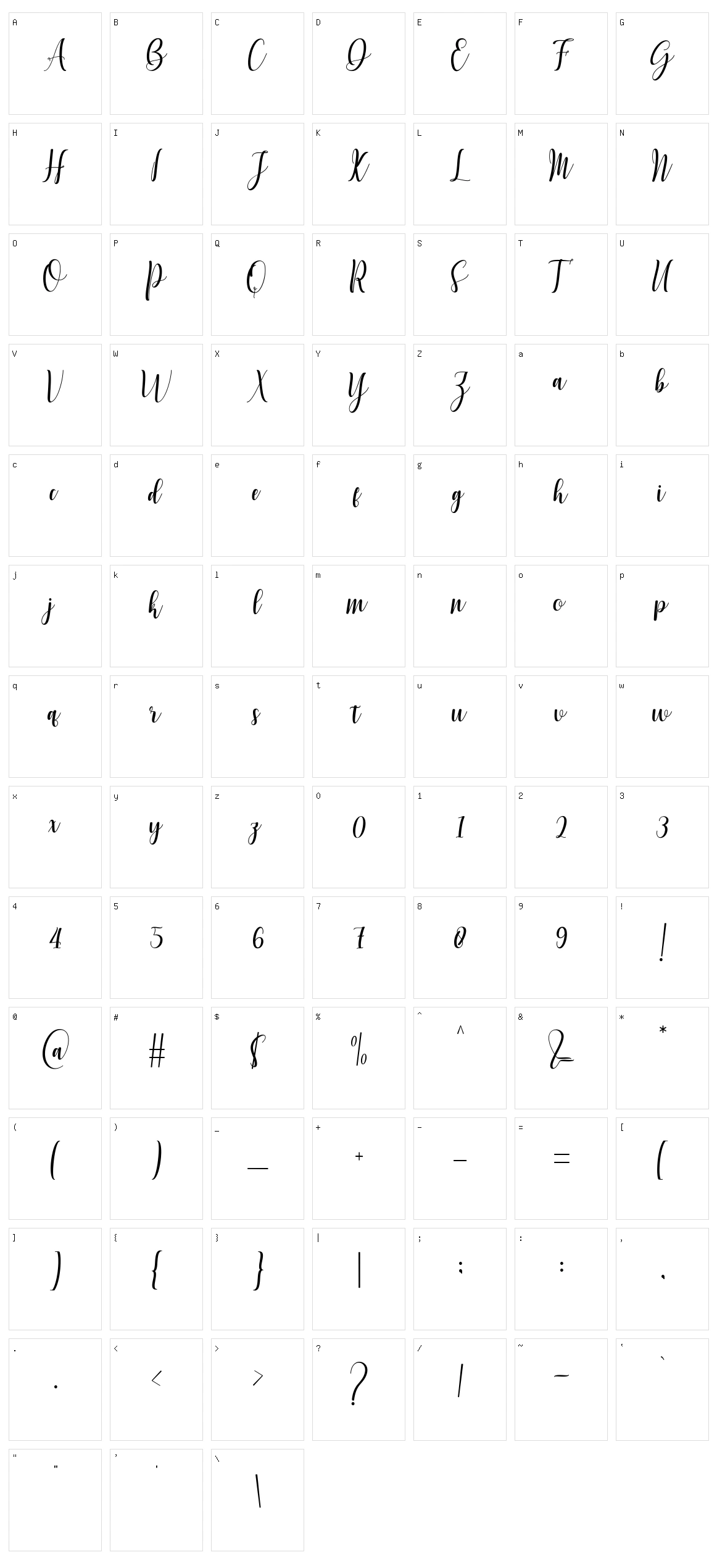
The free font Mettadilla is carefully designed by Bexxtype, showcasing a thoughtful balance of creativity and usability and falls under the Script font style. When you download the ZIP file, it contains only 69.06 KB of font files, making it lightweight and quick to download. Please review the license details below to understand permitted usage and distribution rights. If license information is not available, we recommend using this font for personal projects only or contacting the author directly for commercial usage permissions.